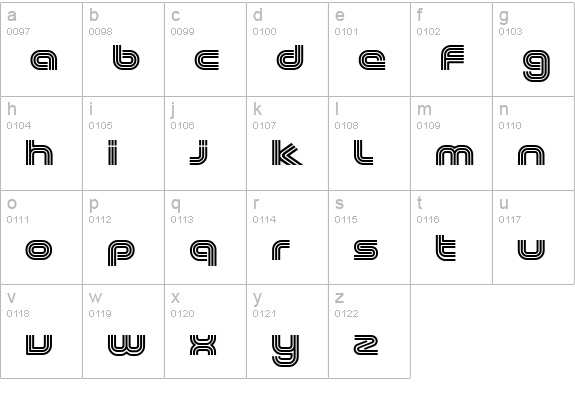
Excellence Extended Font Details
Excellence Extended is a distinctive, extended-width variant in the Excellence typeface family \xE2\x80\x94 well suited to design and typography projects.
Introducing Excellence Extended font, a versatile and modern typeface designed to elevate your design projects to new heights. With its sleek and sophisticated appearance, Excellence Extended is perfect for creating eye-catching headlines, logos, posters, and more. This font exudes a sense of professionalism and elegance, making it ideal for a wide range of design applications. What sets Excellence Extended apart is its unique blend of sleek lines and sharp edges, giving it a distinct and contemporary look. Whether you're working on a branding project, a website design, or a print advertisement, this font will add a touch of class and sophistication to your work. The best part? Excellence Extended is completely free to download at FontsMarket.com. This means you can access this premium font without any cost, making it the perfect choice for designers on a budget. Don't miss out on this opportunity to enhance your design projects with the stylish and elegant Excellence Extended font. Download it today and take your designs to the next level!